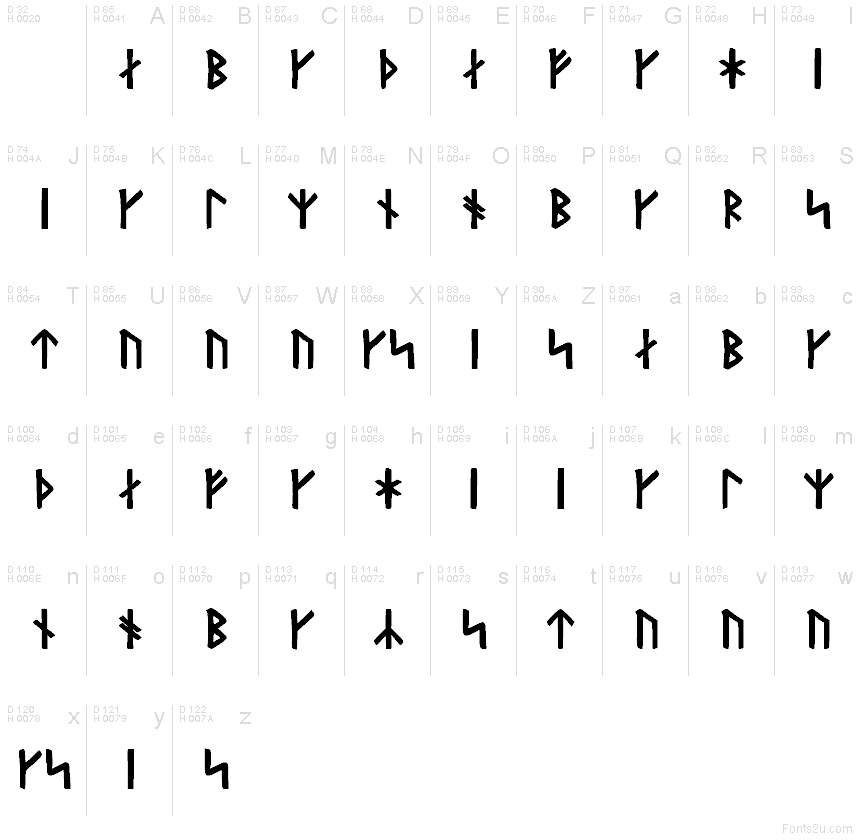
Monastery Raid Regular
Monastery Raid font by Sashko Tomych is a free runic dingbats font. Built from the ground up for mythic, Norse-tinged visuals, it trades curves for angular cuts and chiseled stems that feel carved, not drawn. The strokes are slightly uneven, like ink dragged over rough bark, giving every word a weathered, ritual weight. It’s a rough adaptation of Younger Futhark forms to the Latin set, so you get immediate “ancient inscription” energy without sacrificing legibility.
Using Monastery Raid, headlines snap with stark rhythm and an authentic, hand-hewn texture that shines on fantasy game titles, Viking festival posters, metal band merch, escape room signage, lore-heavy book covers, and tabletop RPG maps. Set it big with loose tracking to amplify the carved edges, and pair it with a clean geometric sans for body copy to keep the mystique readable. This free font brings the cold-iron mood without extra ornament.